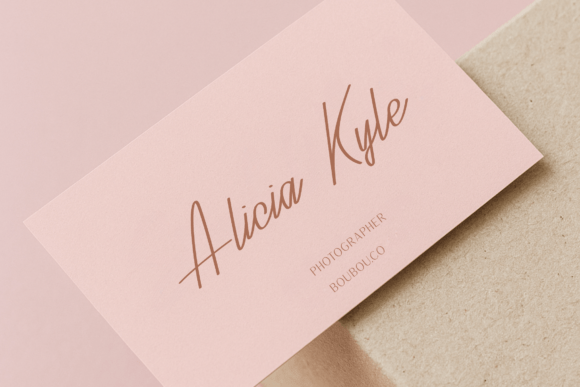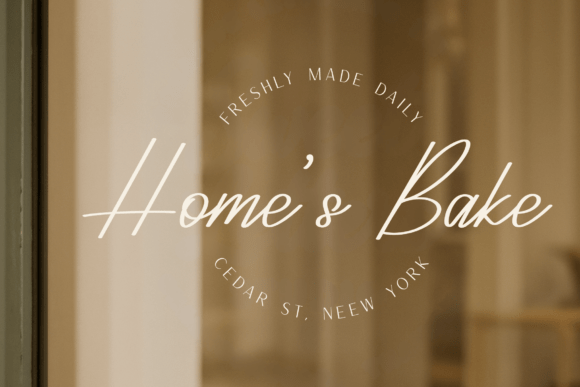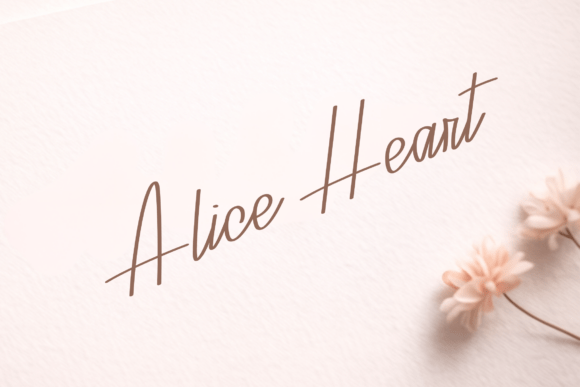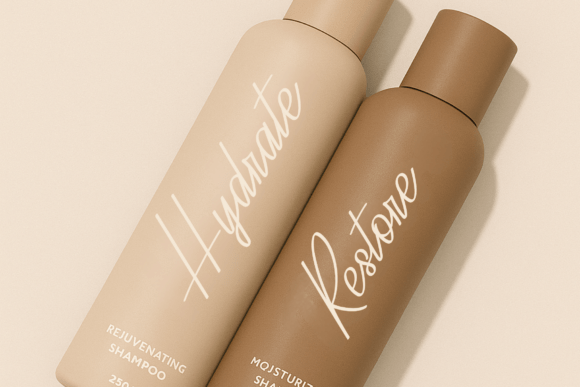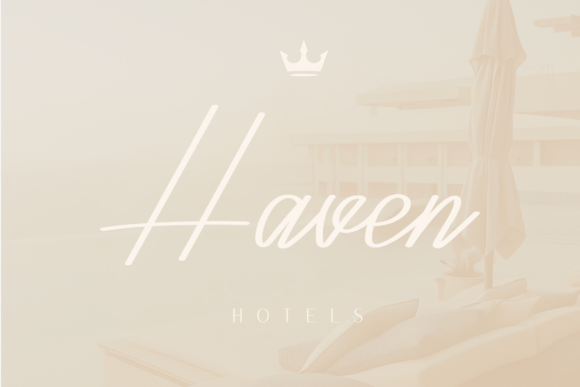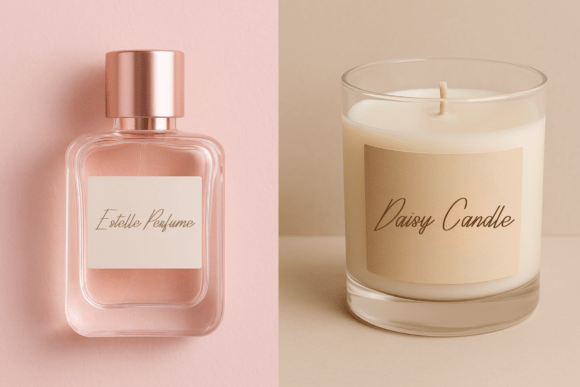
Aura Haven Font: Elevate Your Design with Delicate Handwritten Elegance
In the world of typography, few fonts capture the essence of elegance and sophistication as effortlessly as Aura Haven. This delicate handwritten signature font is a masterful blend of soft refinement and modern minimal luxury, making it an ideal choice for designers and crafters seeking to infuse their projects with a touch of feminine charm. Inspired by the serenity of a peaceful haven and the gentle glow of an aura, Aura Haven is a timeless font that exudes warmth, romance, and style.
The Characteristics of Aura Haven
Aura Haven is distinguished by its airy strokes, refined curves, and graceful handwritten flow. These characteristics come together to create a calm and sophisticated aesthetic that is perfect for feminine branding. The font’s delicate nature makes it an excellent choice for designs that require a subtle yet impactful touch. Whether you’re working on boutique logos, wedding invitations, photography branding, beauty packaging, or luxury social media designs, Aura Haven is the perfect companion.
Design Inspiration
The inspiration behind Aura Haven is deeply rooted in the concept of a peaceful haven and the ethereal quality of an aura. The font’s creator aimed to capture the warmth and serenity of a tranquil environment, where the gentle glow of an aura envelops and soothes the senses. This inspiration is evident in the font’s elegant and refined appearance, which is both personal and romantic. Aura Haven’s design ensures that your projects convey a sense of luxury and sophistication, making it perfect for high-end branding and marketing materials.
Versatility and Application
Aura Haven’s versatility is one of its most compelling features. This font is not limited to a specific industry or application; rather, it can be seamlessly integrated into various design projects. Here are some of the ideal applications for Aura Haven:
- Boutique Logos: Create a lasting impression with a boutique logo that exudes elegance and sophistication. Aura Haven’s delicate yet refined appearance makes it perfect for high-end fashion brands, jewelry designers, and luxury service providers.
- Wedding Invitations: Add a touch of romance and whimsy to your wedding invitations with Aura Haven. The font’s handwritten flow and airy strokes create a beautiful, personal aesthetic that sets the tone for a memorable event.
- Photography Branding: Elevate your photography branding with a font that speaks to creativity and sophistication. Aura Haven’s elegant appearance makes it perfect for photographers who want to convey a sense of artistry and refinement.
- Beauty Packaging: Make a statement with your beauty packaging using Aura Haven. The font’s delicate and refined nature makes it ideal for luxury beauty brands seeking to convey a sense of high-end quality.
- Luxury Social Media Designs: Stand out on social media with Aura Haven’s elegant and sophisticated appearance. The font is perfect for creating engaging, high-end content that resonates with your audience.
Why Choose Aura Haven?
Aura Haven offers a unique combination of elegance, sophistication, and versatility, making it an excellent choice for designers and crafters. Here are some reasons why you should consider Aura Haven for your next project:
- Effortless Elegance: Aura Haven’s delicate handwritten appearance creates a sense of effortless elegance, perfect for high-end branding and marketing materials.
- Flexibility: The font’s versatility makes it suitable for various design applications, from boutique logos to luxury social media designs.
- Personal Touch: Aura Haven’s handwritten flow and airy strokes add a personal touch to your designs, making them more relatable and engaging.
- Timeless Appeal: The font’s classic appearance ensures that your designs remain timeless and relevant, even as trends evolve.
| Font Name | Aura Haven Font |
| Author | FVBFontArt |
Aura Haven Font is a delicate handwritten signature font that embodies the perfect blend of soft elegance and modern minimal luxury. Its airy strokes, refined curves, and graceful handwritten flow make it an ideal choice for designers and crafters seeking to create sophisticated and feminine branding. With its versatility, timeless appeal, and effortless elegance, Aura Haven is the perfect companion for your next design project. Whether you’re working on boutique logos, wedding invitations, photography branding, beauty packaging, or luxury social media designs, Aura Haven is sure to elevate your creations and leave a lasting impression.